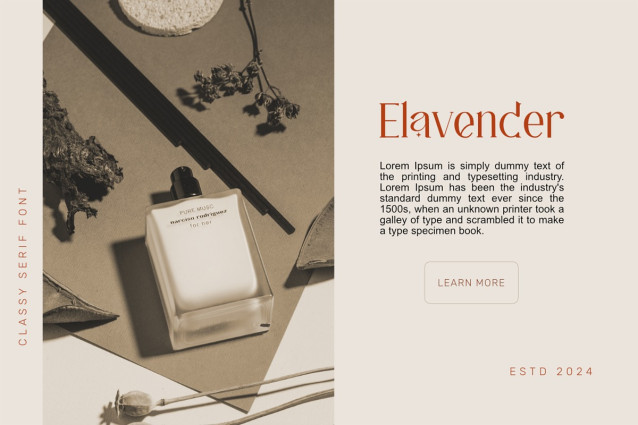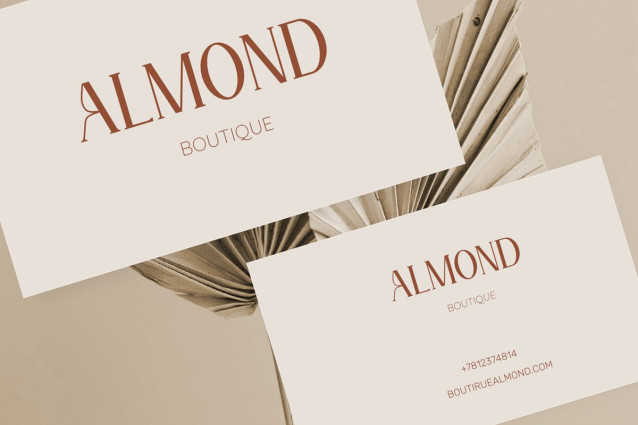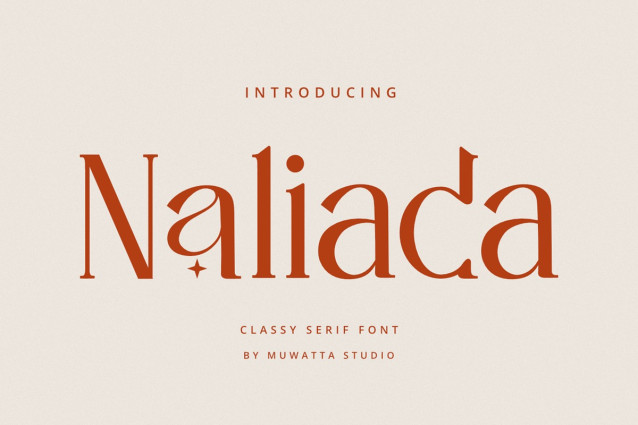
Naliada Font
Naliada Font, a sophisticated and elegant typeface designed for those who appreciate refined aesthetics in typography. With its graceful curves and timeless appeal, Naliada is crafted to elevate your projects, whether it’s in the realms of fashion, wedding design, or modern typography.
Perfectly suited for high-end branding, Naliada exudes a sense of luxury and elegance, making it an ideal choice for wedding invitations, fashion editorials, and logo designs. Its harmonious letterforms create a seamless flow, giving every project a sense of exclusivity and class.
Whether you’re creating captivating headlines, sophisticated stationery, or modern visual identities, Naliada Typeface is your go-to font for adding a touch of sophistication and style.